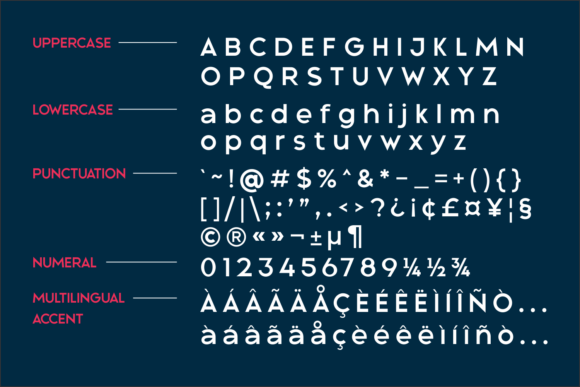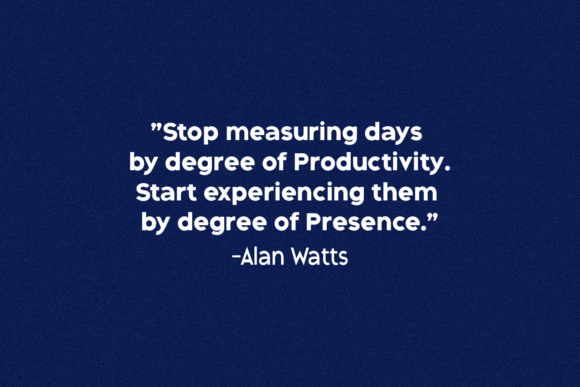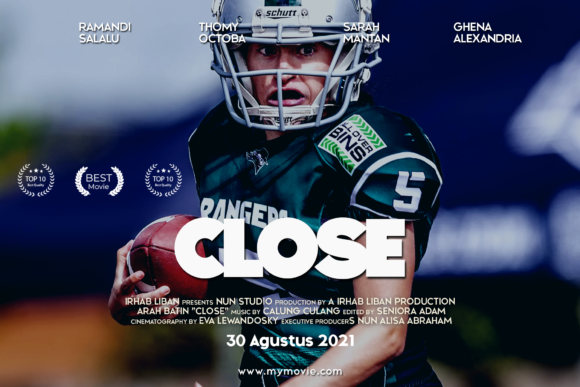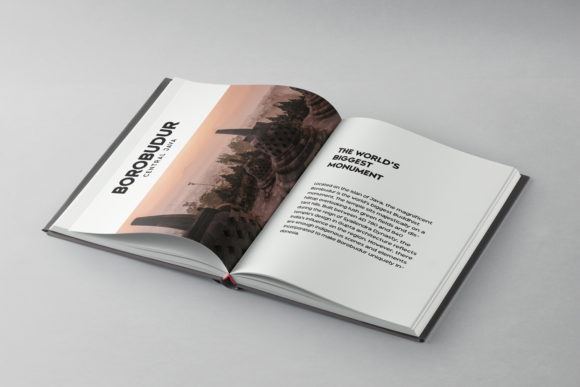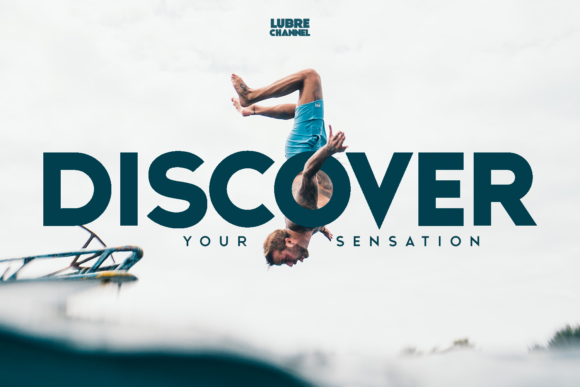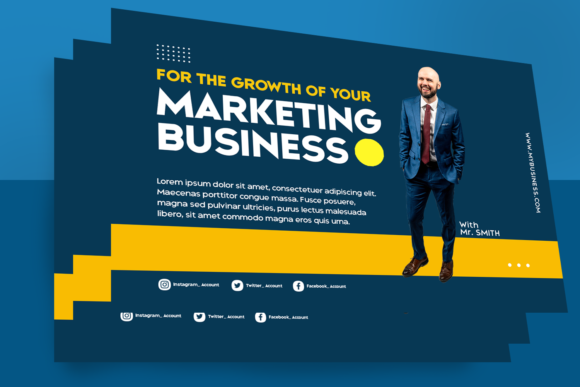
The Perfect Font for a Bold Statement
You know that moment when you’re brainstorming ideas for a new project and everything just clicks into place? The fonts, the colors, the overall vibe – it all comes together to create something truly special. For designers, that moment is what makes all the hard work worth it. And sometimes, all it takes is the right font to take your design from good to great. That’s where the Growland Font comes in – a cool, bold, and simple lettered display font that adds a touch of assertive character to any design.
With the Growland Font, you can create designs that read as strong, confident, and dynamic. Whether you’re working on a logo, a brochure, or a social media campaign, this font is sure to make a statement. And for designers, that’s what makes it so valuable – it’s a versatile tool that can help you communicate your message with clarity and impact.
Growland Font Key Features
- Font Family: Growland Font is a sans-serif font family with multiple weights and styles, including Thin, Light, Regular, Medium, Bold, and Black.
- Character Count: The font family includes over 1000 glyphs, covering a wide range of languages, including Latin, Cyrillic, Greek, and more.
- Resolution: Growland Font is designed to be high-resolution, with clear and crisp typography at resolutions up to 300 DPI.
- Unique Characteristics: Growland Font features a unique blend of modern and minimalist design elements, with clean lines, rounded corners, and a subtle x-height, making it suitable for a wide range of applications, from corporate branding to digital interfaces.
Growland Font Review
Overall, I’m quite impressed with the Growland Font. It’s a solid addition to any designer’s toolkit. Here are some of its standout features:
- ✨ Unique blend of modern and vintage elements: The Growland Font effectively combines the elegance of traditional typography with the sleekness of modern design.
- ✨ High-quality vector graphics: The font’s vector format ensures crisp and clear rendering at any size or resolution.
- ✨ Excellent legibility: Growland Font is easy to read, making it perfect for a wide range of applications, from body text to headings.
- ⚠️ Limited language support: The font’s character set is currently limited to Latin-based languages, which may be a concern for designers working with non-Latin scripts.
- ⚠️ No bold/italic variations: While the regular weight is great, the lack of bold and italic versions can make it less versatile for certain design applications.
Overall, I think the Growland Font is a great choice for designers looking for a stylish and modern sans-serif font. While it has some limitations, its unique blend of modern and vintage elements makes it a standout in its class.
Tip: Use Growland Font for titles and headings to create a bold and modern look. Experiment with different font sizes and colors to achieve the desired effect.
Tip: Use Growland Font for typography-heavy designs, such as posters or brochures. Experiment with different font styles and effects to create a unique look.
Tip: Use Growland Font for presentations and documents that require a modern and professional look. Experiment with different font sizes and colors to create a visually appealing design.
Growland Font is suitable for a wide range of designs, including:
Posters and flyers
Brochures and catalogs
Presentations and reports
Web design and development
Alternatives to Growland Font for Designers
Montserrat Font is a sans-serif font designed by Julieta Ulanovsky. It’s a popular choice for designers due to its clean and modern look. Use Montserrat for headings, titles, and body text where a strong, urban feel is required. Montserrat is similar to Growland Font in its geometric and modern design, but it has a more refined and sophisticated look.